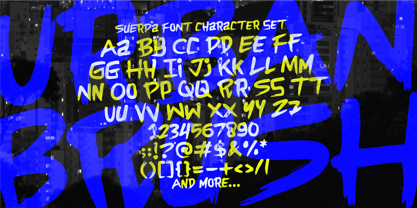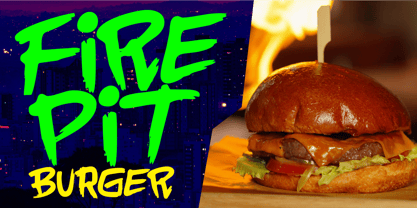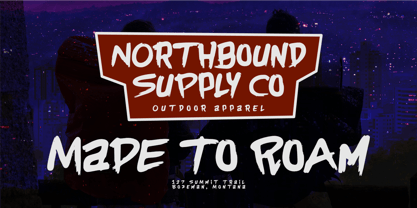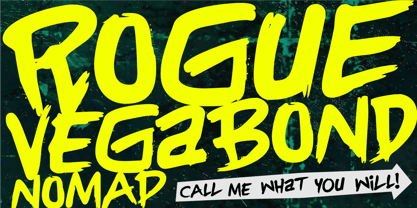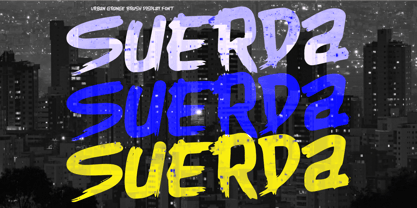
Suerda
by Olivetype
The Suerda Font Family was designed by Nurul Hidayani and published by Olivetype. Suerda contains 1 styles. More about this family
Suerda is a bold and expressive brush font crafted with raw energy and hand-painted character. Featuring rough edges, dynamic strokes, and an authentic dry-brush texture, Suerda delivers a fearless and adventurous look that instantly grabs attention. Perfect for logos, branding, apparel, packaging, movie titles, music covers, posters, social media graphics, sports designs, and outdoor-themed projects, this font brings a rugged personality to every design. Whether you're creating a wild streetwear brand, an action-packed headline, or a striking promotional graphic, Suerda provides the power, freedom, and confidence to make your message stand out.
Designers: Nurul Hidayani
Foundry: Olivetype